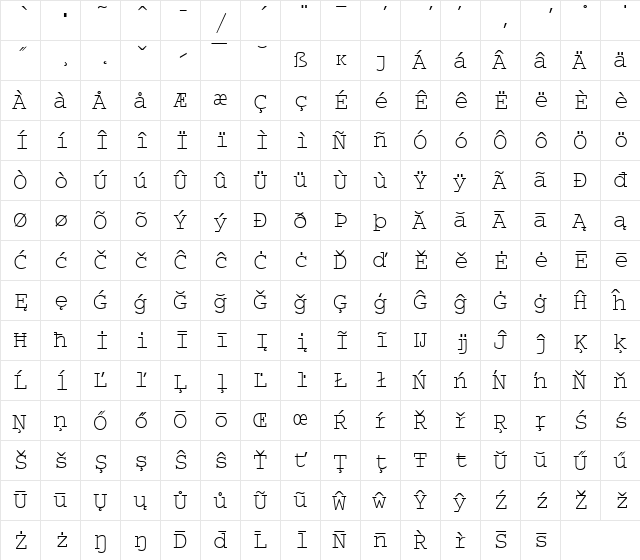
WP MultinationalA Courier Normal
Design Context for WP MultinationalA Courier Typeface
WP MultinationalA Courier uses fixed-width spacing throughout, giving it the structured, systematic character associated with coding environments and technical documentation.
A natural fit for code editors, technical documentation, developer-focused branding, and terminal-inspired UI.
Pro Tip: Pair WP MultinationalA Courier with a proportional sans for UI contexts where code-style labels and regular body copy need to coexist.